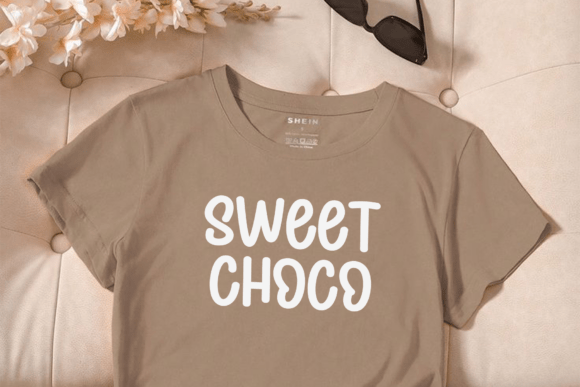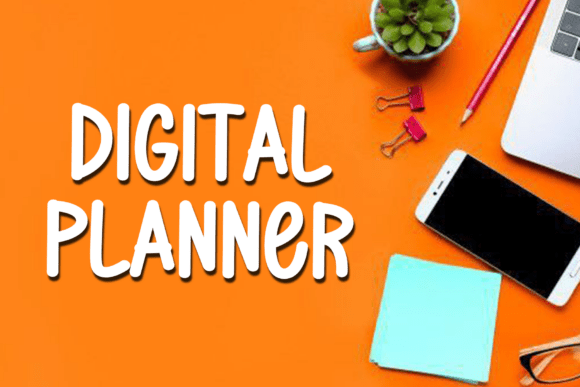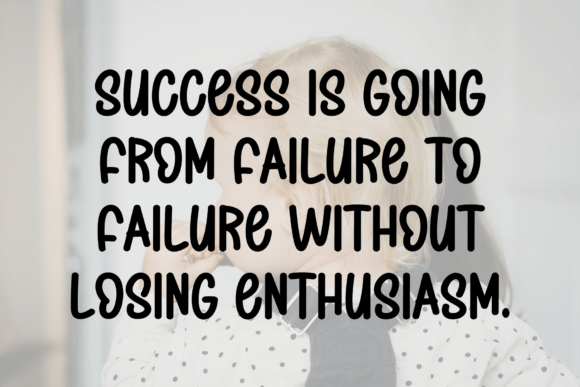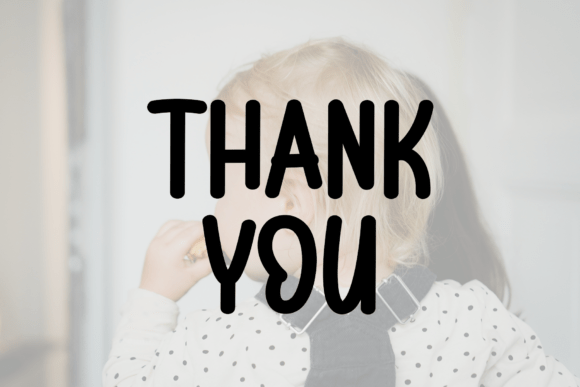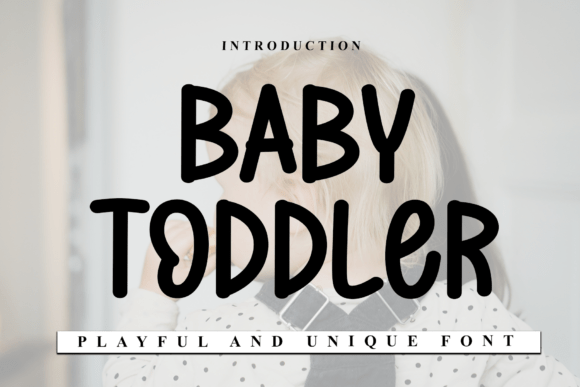
Introducing Baby Toddler Font: The Ultimate Display Font for a Playful and Youthful Audience
Are you looking for a font that can bring a sense of playful wonder to your design projects? Look no further than Baby Toddler, an adorable and chubby-cute display font that’s perfect for capturing the imagination of a younger audience. With its incredibly rounded, bold strokes and intentionally uneven, hand-drawn appearance, this typeface is sure to delight designers and crafters alike.
What Makes Baby Toddler Font So Special?
Baby Toddler font is characterized by its unique blend of youthful energy and warmth. The font’s high x-height and solid construction make it highly legible, while the soft, bubble-like terminals eliminate any harsh edges, resulting in a look that is gentle, approachable, and undeniably fun. The intentionally uneven, hand-drawn appearance gives the font a charming imperfection that sets it apart from more traditional typefaces.
The Perfect Font for Projects Targeting a Younger Audience
Baby Toddler font is the perfect choice for any project targeting a younger audience. Its quirky, comic-style aesthetic ensures your message is delivered with maximum impact and an infectious dose of childlike happiness. Whether you’re designing children’s book titles, nursery decor prints, educational materials, toy packaging, or sweet, eye-catching social media posts, this font is sure to capture the imagination of your audience.
Use Baby Toddler Font in a Variety of Design Projects
The versatility of Baby Toddler font makes it an excellent choice for a wide range of design projects. Here are just a few ideas to get you started:
- Children’s book titles: Add a touch of whimsy and fun to your children’s book titles with Baby Toddler font.
- Nursery decor prints: Create adorable nursery decor prints that are sure to delight parents and babies alike.
- Educational materials: Make learning fun with Baby Toddler font, perfect for educational materials such as worksheets, activity sheets, and more.
- Toy packaging: Add a playful touch to your toy packaging with Baby Toddler font.
- Cartoon logos: Create fun and playful cartoon logos that are sure to capture the imagination of your audience.
- Social media posts: Add a touch of whimsy and fun to your social media posts with Baby Toddler font.
Why Designers and Crafters Love Baby Toddler Font
Designers and crafters love Baby Toddler font for its unique blend of playfulness and charm. The font’s intentionally uneven, hand-drawn appearance gives it a charming imperfection that sets it apart from more traditional typefaces. The soft, bubble-like terminals eliminate any harsh edges, resulting in a look that is gentle, approachable, and undeniably fun.
Tips for Using Baby Toddler Font in Your Design Projects
Here are a few tips for using Baby Toddler font in your design projects:
- Use it sparingly: Baby Toddler font is a display font, so use it sparingly to add emphasis and create visual interest.
- Pair it with other fonts: Pair Baby Toddler font with other fonts to create a unique and visually appealing combination.
- Experiment with colors: Experiment with different colors to find the perfect combination that brings your design to life.
- Have fun: Most importantly, have fun with Baby Toddler font! Its playful and whimsical nature makes it the perfect choice for designers and crafters who want to add a touch of personality to their design projects.
In conclusion, Baby Toddler font is a versatile and charming display font that’s perfect for designers and crafters who want to add a touch of playful wonder to their design projects. Its unique blend of youthful energy and warmth makes it an excellent choice for projects targeting a younger audience. With its high legibility, soft terminals, and intentionally uneven appearance, Baby Toddler font is sure to delight audiences of all ages.